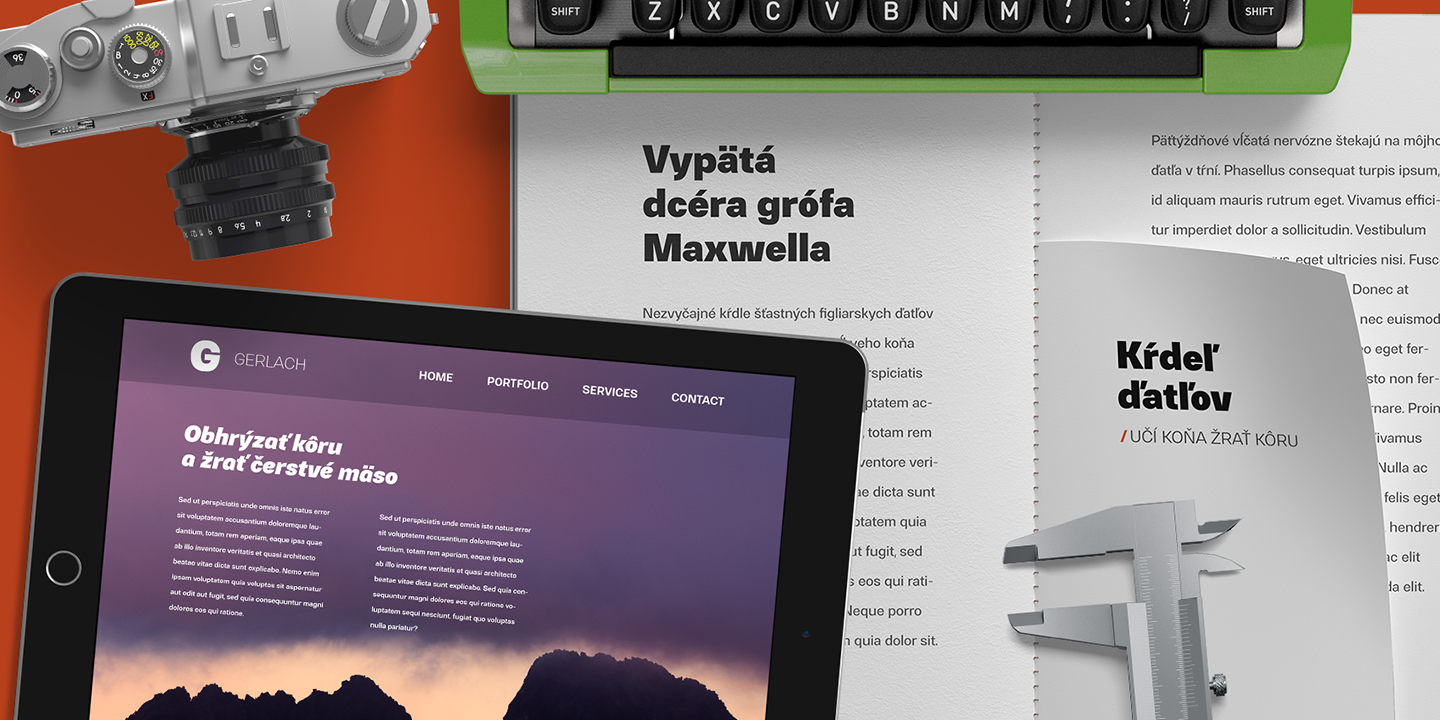
Gerlach Sans Font Free Download – A refined neo-grotesque sans-serif that masterfully blends Swiss precision with contemporary warmth. With its impeccable proportions and subtle humanist touches, Gerlach Sans delivers typographic excellence for discerning designers.
Optimal Applications
This versatile workhorse excels in:
• Corporate Identity Systems – Annual reports, brand guidelines, executive communications
• UI/UX Design – App interfaces, dashboards, and responsive web typography
• Editorial Sophistication – High-end magazines and newspaper redesigns
• Wayfinding Systems – Airport signage and urban environmental typography
The Gerlach Sans Advantage
Experience unparalleled:
0.5% optical corrections for perfect visual balance
Hinting optimized for Retina and 4K displays
Extended Latin character set with Cyrillic support
Seven meticulously calibrated weights
Complete Gerlach Sans Family
The comprehensive system includes:
• Gerlach Sans Thin
• Gerlach Sans Light
• Gerlach Sans Regular
• Gerlach Sans Medium
• Gerlach Sans SemiBold
• Gerlach Sans Bold
• Gerlach Sans Black
• True italics for each weight